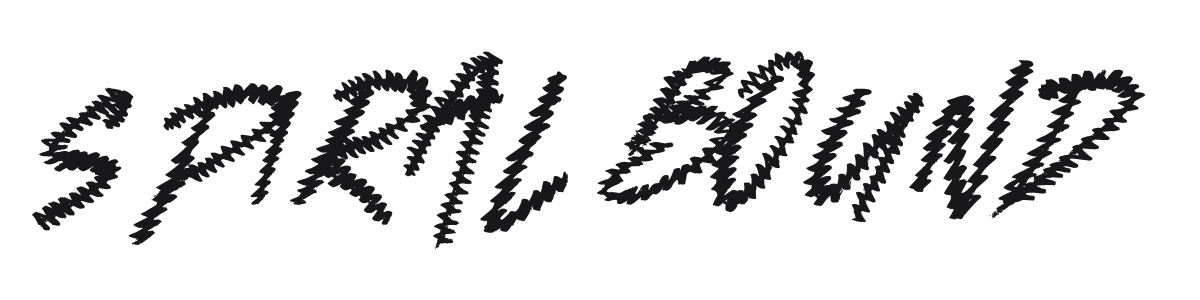
Spiral Bound
Spiral Bound is a grunge script with jagged, serrated edges that make every stroke look torn or slashed. The steep italic angle and chaotic texture give it an unmistakable punk and underground energy. Strong at large sizes for posters, album covers, and horror-adjacent branding.